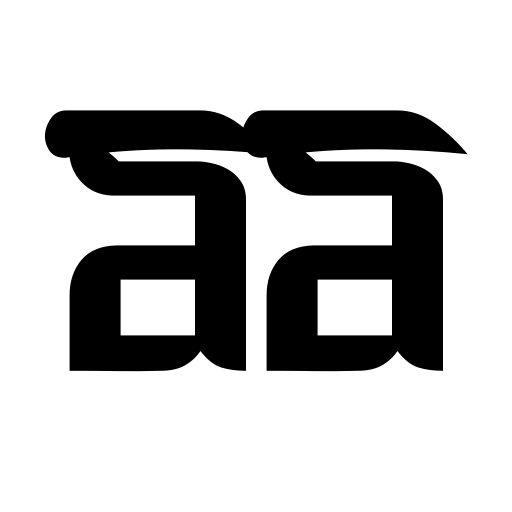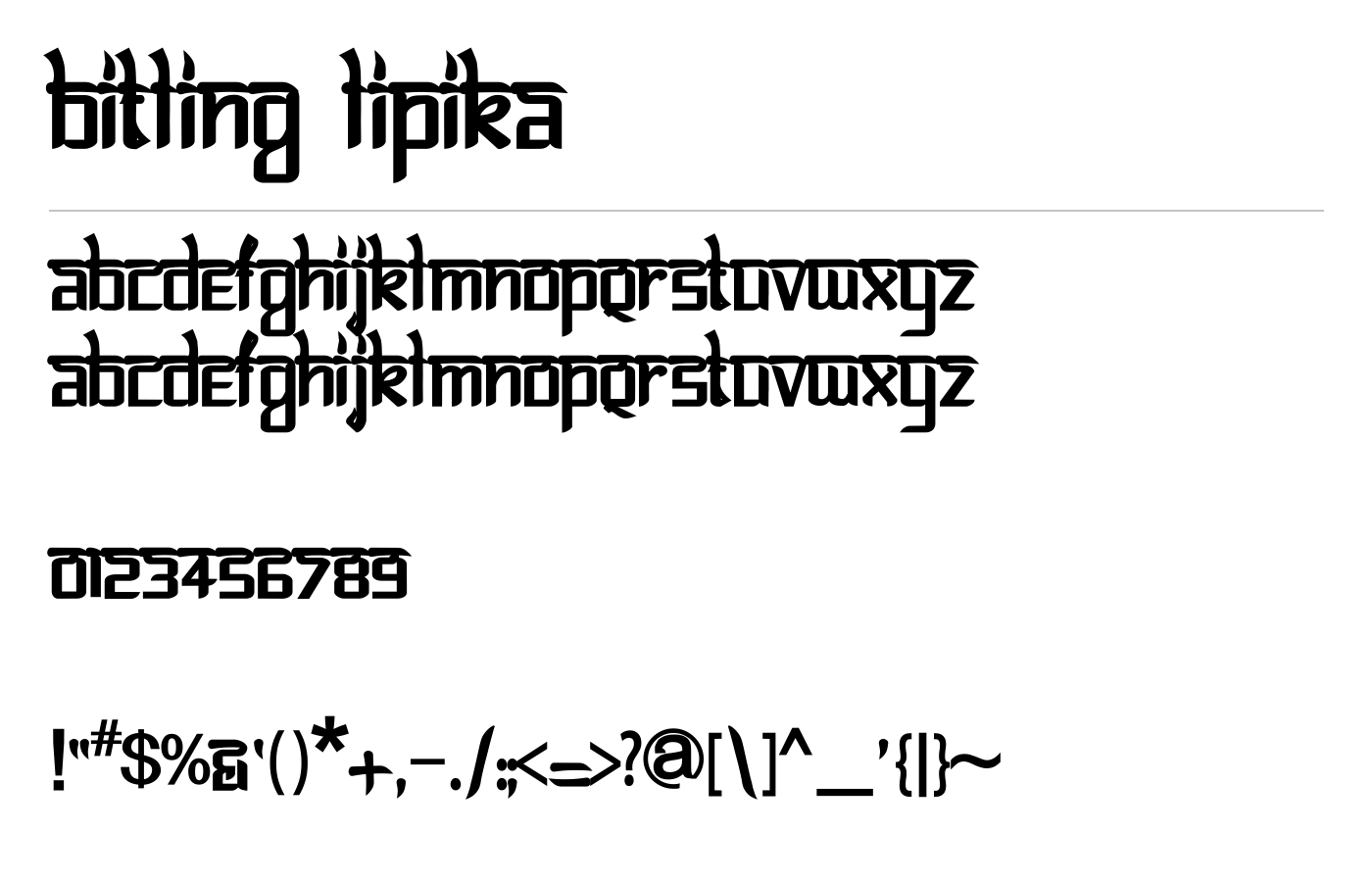
Bitling Lipika is a bold, condensed sans serif font with a futuristic and slightly ornamental style, featuring sharp, tight letterforms and a high x-height that enhances readability despite its compact design. Its unique angular strokes and distinctive shapes give it a modern, edgy personality, making it ideal for branding, posters, and digital titles that seek a strong, unconventional look. This font works well in contexts where a striking, avant-garde impression is desired, especially in creative and tech-forward projects.
Bitling lipika Font
About Bitling lipika Font